Finding the right font for clothing brand identity can feel like unlocking your label’s true personality. From strong and adventurous to clean and neat, the right typeface sets the tone for how your brand is displayed and turns heads.
Key Takeaways:
- Choosing a memorable font helps your brand stand out both online and on the rack.
- Typography is a part of your brand’s expressive medium for memorable apparel.
Unleashing Creativity with the Perfect Font for Clothing Brand
The ideal font for your clothing line should represent and even elevate your visual game. A standout label is like your brand’s signature, leaving a resonating impact of your brand’s vision and direction.
1. Aestera
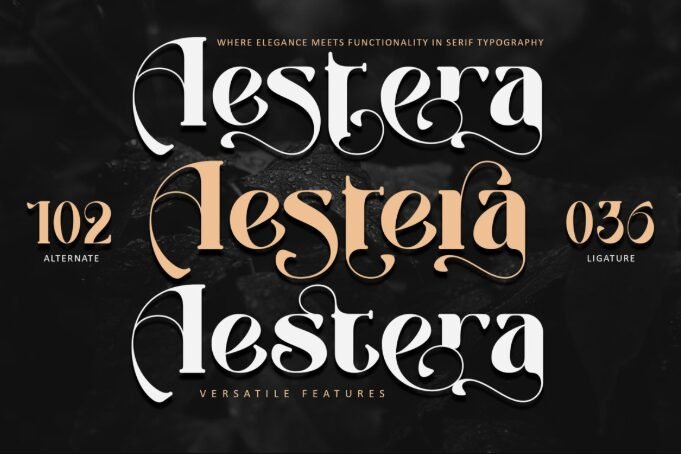
Aestera displays unique, experimental letterforms that easily leave a lasting impression for your clothing brand. It’s floral and sporadic, contrasting strokes make Aestera pop.
2. Rockybilly
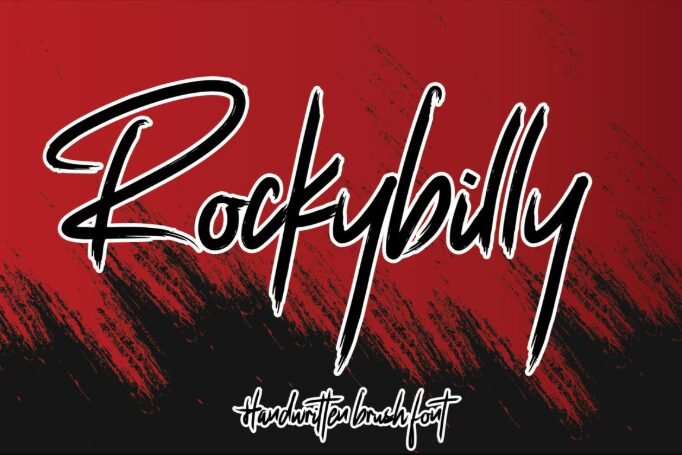
Edgy, cool, and carefree are exactly what Rockybilly represents. Rockabilly handwritten brush look, featuring deliberately longer vertical strokes that convey a free, expressive voice.
3. Reality Stone
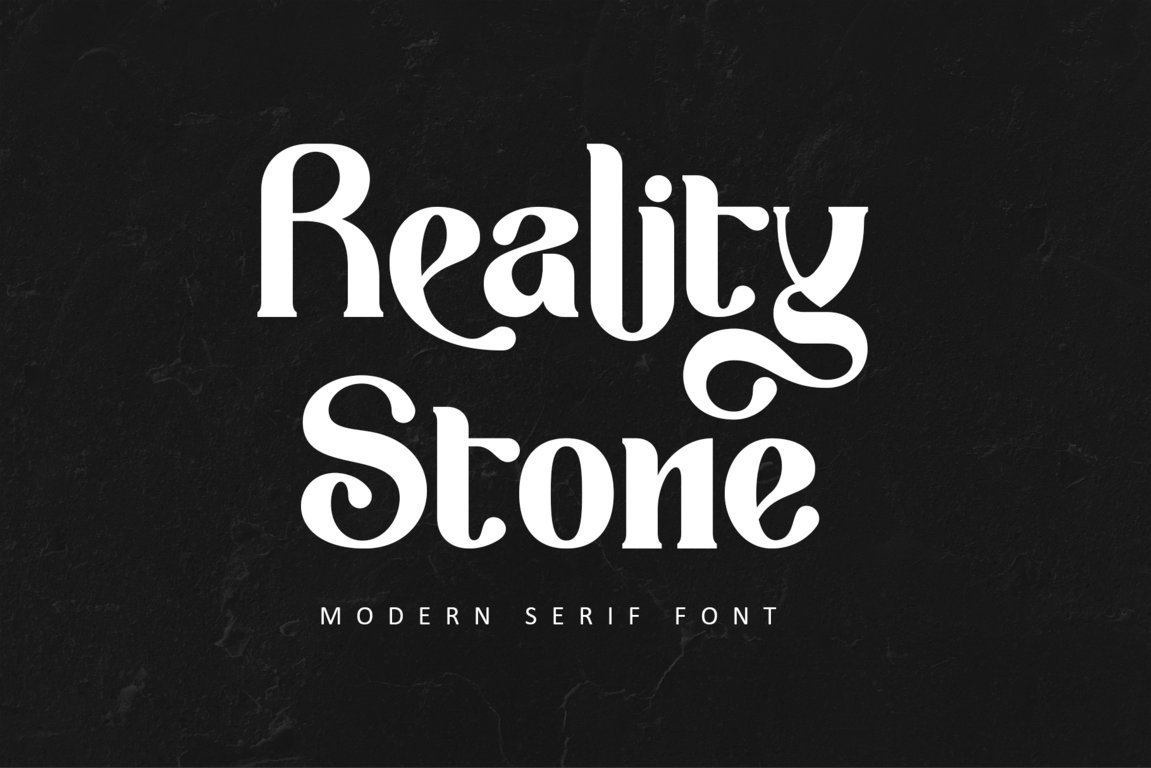
Reality Stone cleverly combines bold letterforms with stretchy and flowing ornaments. This combo makes Reality Stone exhibit an eye-catching dynamics between rigid and fluid.
4. Simbiot
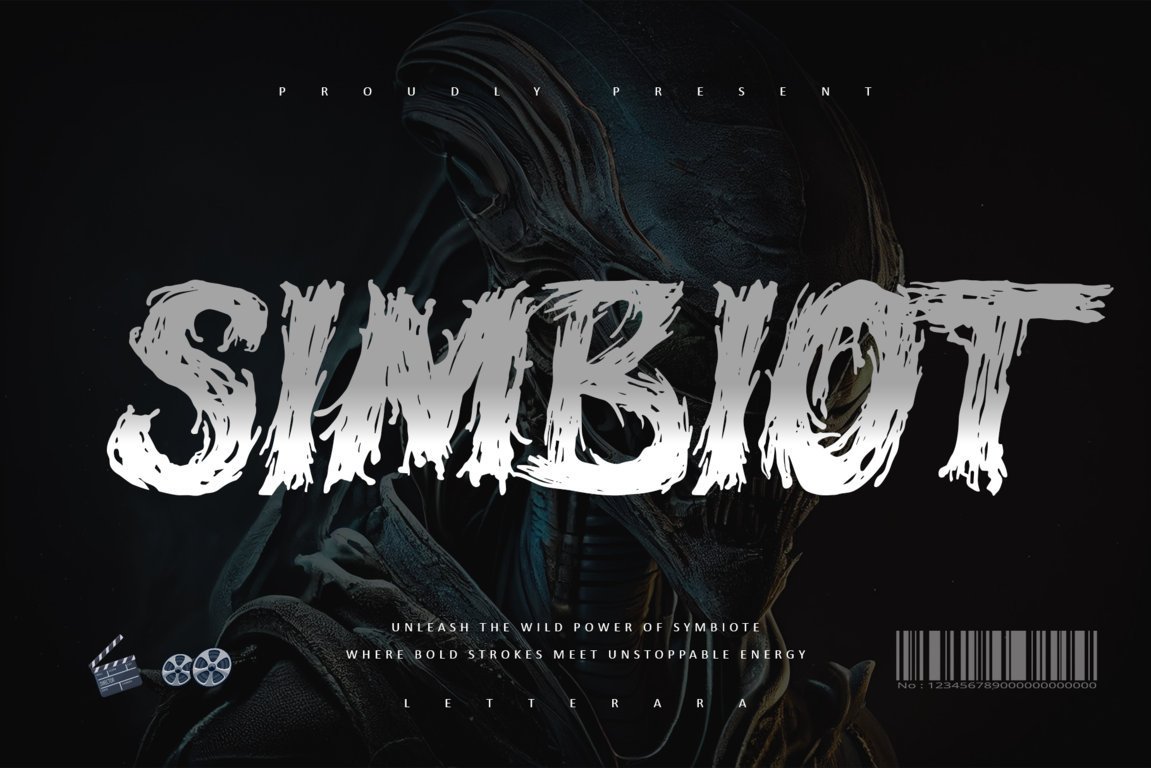
If you’re searching for an edgy font for clothing brand, use Simbiot. Simbiot uses thick, scribbled visuals to evoke the disturbed raw energy from your brand’s vision.
5. Ocean Trace
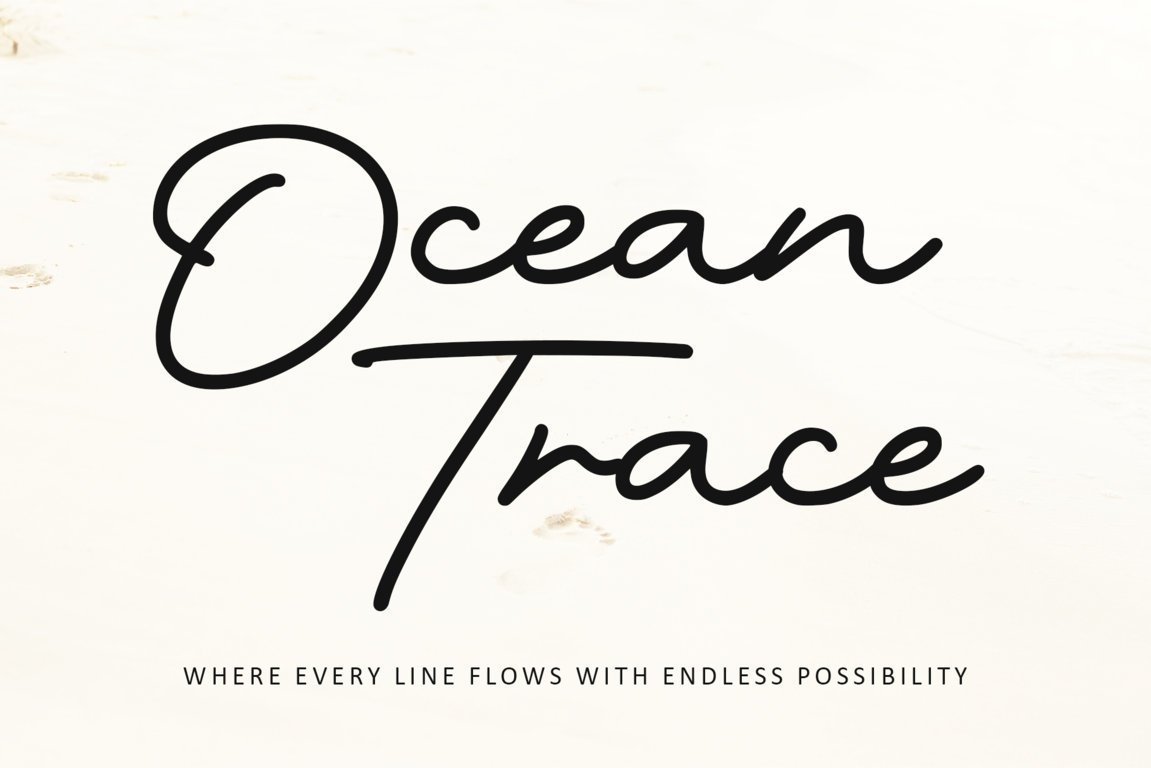
If simplicity is what you’re into, here’s Ocean Trace. Ocean Trace uses a monoline signature style to keep a sleek, clean profile.
6. The Army Of God
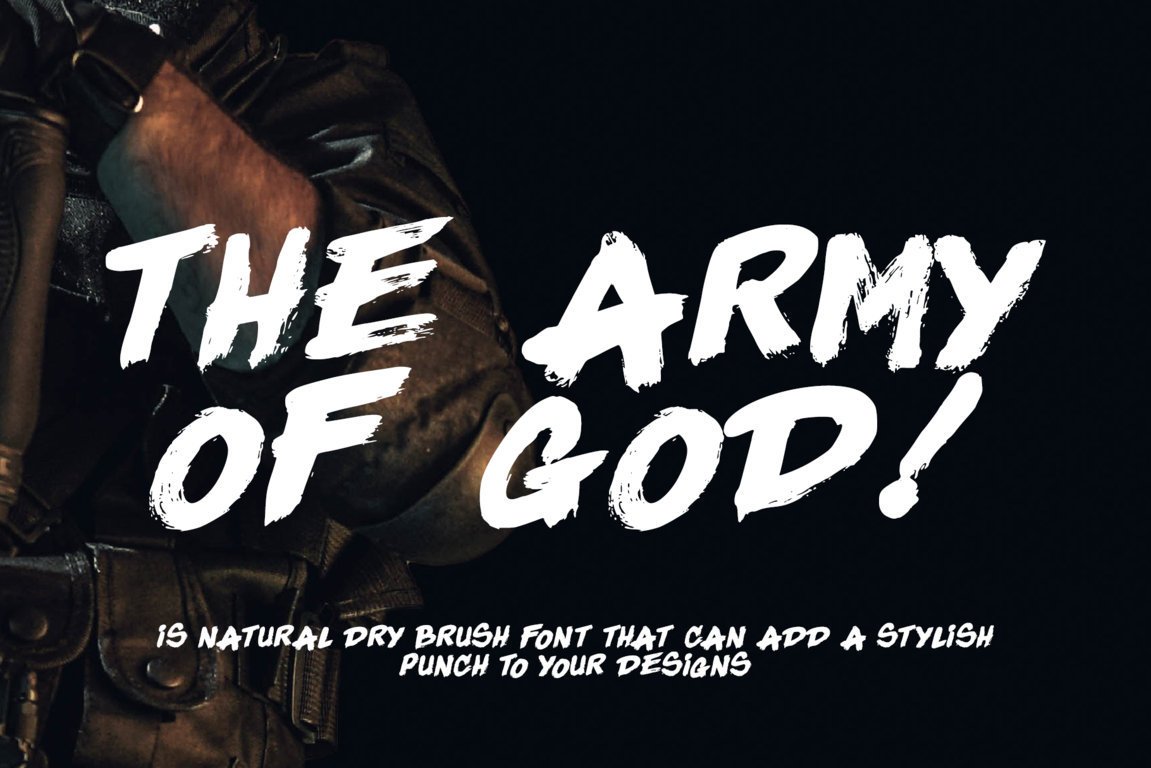
The Army of God uses thick brush strokes with an untamed, fearless aura. Fitting The Army of God on your clothing instantly boosts your text’s loudness.
7. Rolling Beat
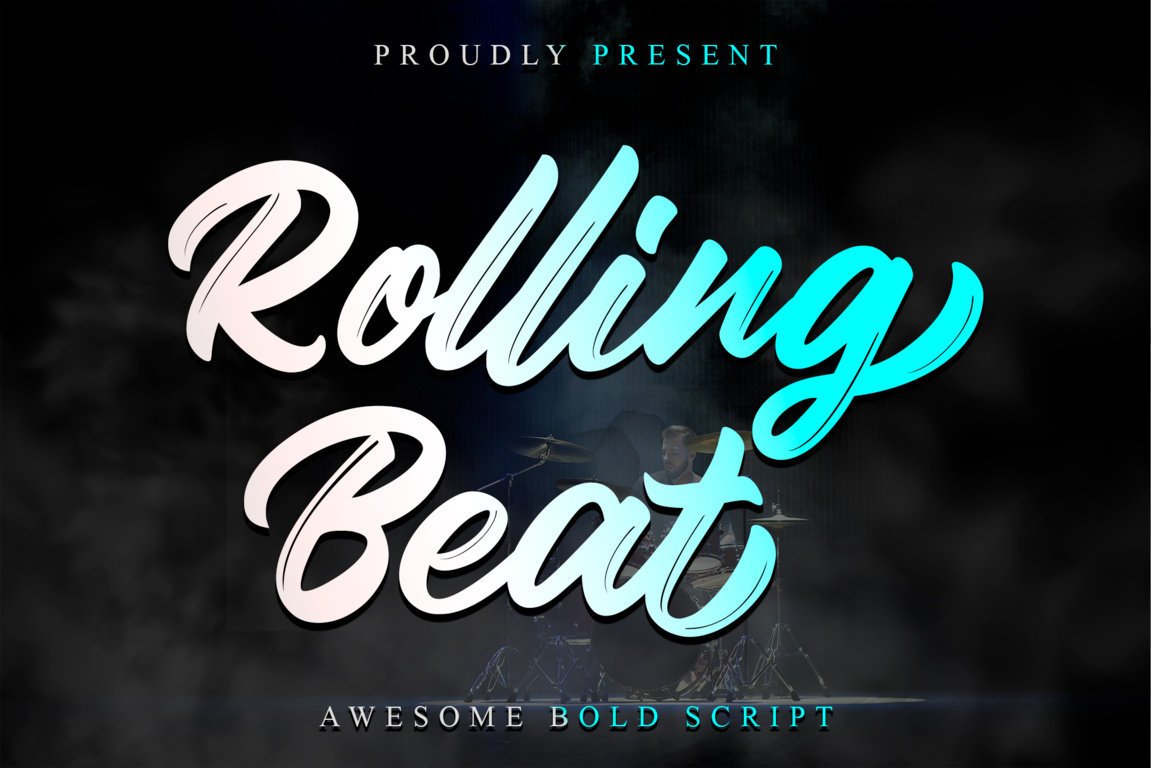
Among our cool fonts for clothing brands, Rolling Beat displays groovy, flowing letterforms, just like its name. Rolling Beat exemplifies how bold script can decorate your apparel.
8. Brokster
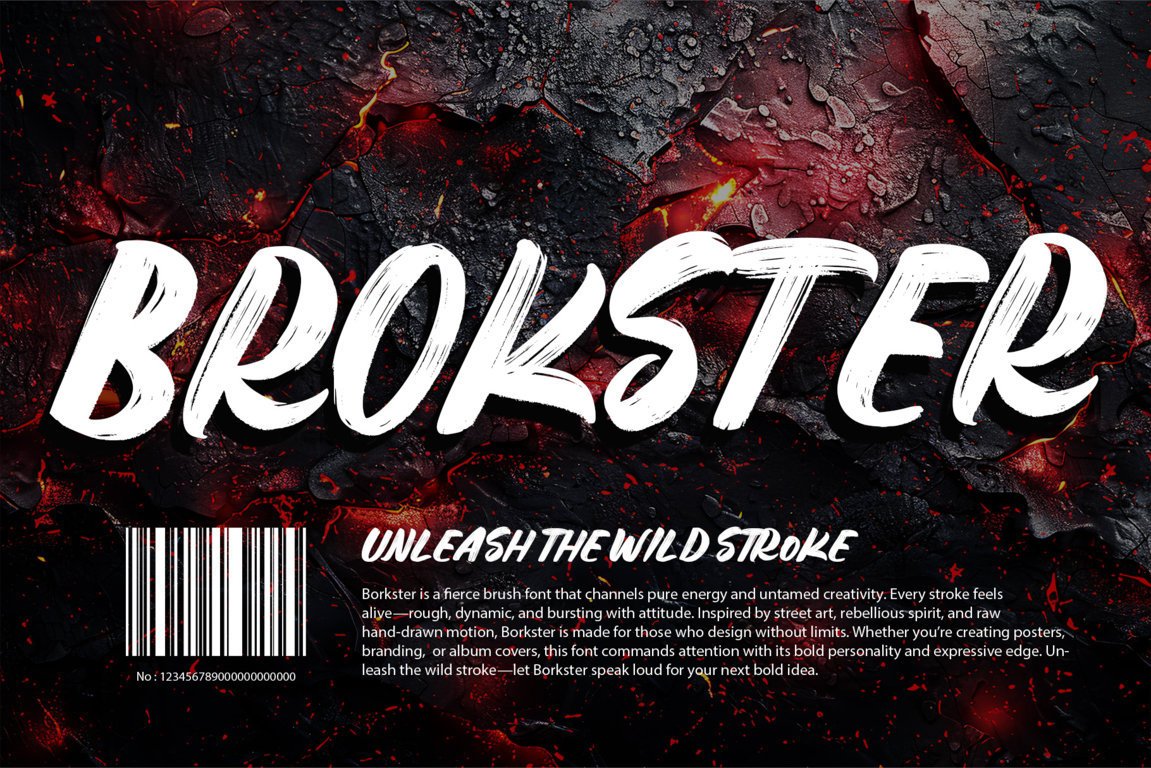
Brokster is specially made to capture attention. Equipped with all-caps letters, Brokster unleashes daring brush letters with grande visuals and a hint of rebellious vibe.
9. Allrion
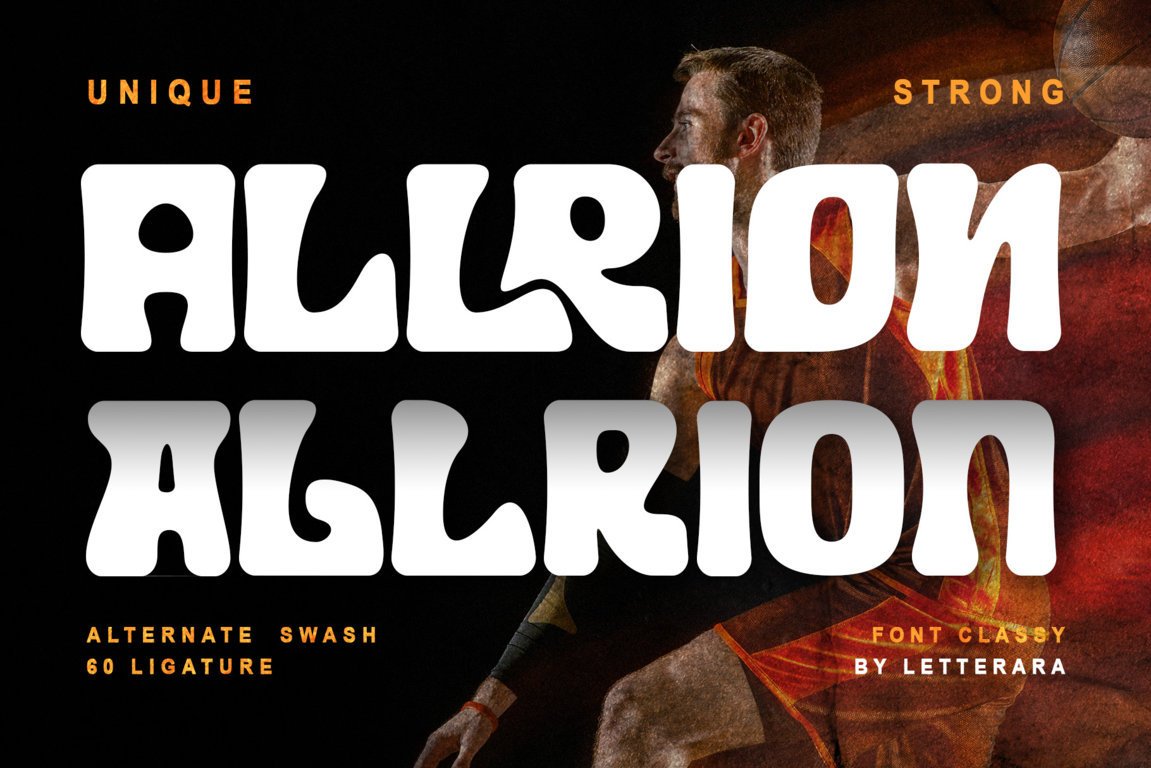
Combining rounded edges in squared letters makes Allrion exhibit a unique visual. Allrion fits the tone for your daring, yet playful designs.
10. Black Oldest
Black Oldest dashes an old-style serif font with mysterious vibes. Highlighting its curly accent and ornaments, Black Oldest embodies its purpose as a clothing brand font.
11. Ranvel
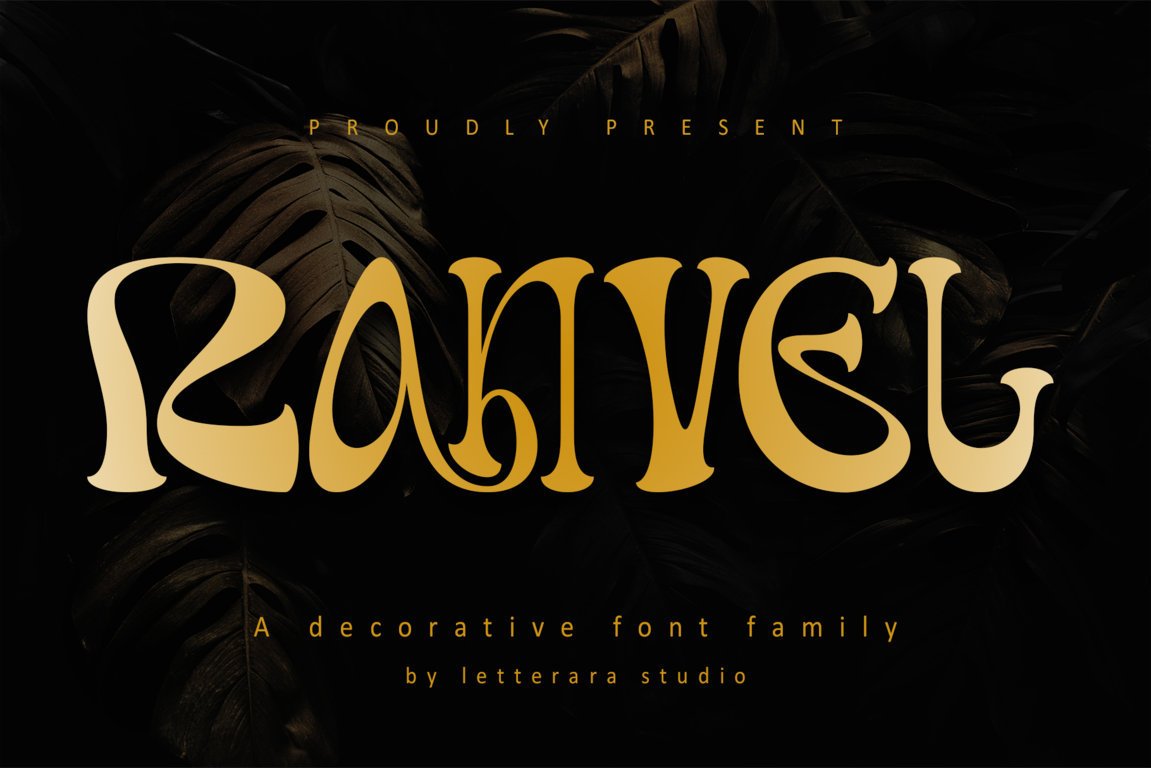
Ranvel is a family of experimental serif fonts. With eccentric and highly decorative all-caps letterforms, Ranvel gives you unlimited possibilities for a striking apparel brand.
12. Super Dash
Super Dash is a free-spirited brush font with thick strokes and light swipes. You can instantly see Super Dash’s masterful typography at a glance; just imagine how fabulous your brand looks in it.
13. Bolday
For sans serif fans, Bolday is a great choice to represent your brand. Bolday uses soft edges on its rigid strokes, even adding numerous flowy alternates and ligatures.
14. Vintage Brother
As one of the best fonts for clothing brands, Vintage Brother highlights its sophisticated, timeless beauty. Vintage Brother instantly suggests heritage and classic quality from your brand.
15. Emboh
Emboh is a playful typeface that elevates bold script style into a high-energy design. With friendly and fresh looks, Emboh is perfect for casual or youth fashion.
16. Black Starlord
Black Starlord is a futuristic typeface that can transform into a playful one, only by using its ligatures. Displaying tall, condensed letters, Black Starlord allows you to save space.
17. Hobenshaw
Hobenshaw is a sophisticated script font with masculine undertones that exudes power and precision. Its sleek, assertive, and tailored look perfectly matches bold men’s fashion branding.
18. Black Area
An all-caps font for clothing brand like Black Area offers maximum visibility and strength. Black Area is perfect for athletic or performance wear branding.
19. Honey Bear
Honey Bear is a comical font with ultra-hyped letterforms that scream everything it says. Its cartoony looks make Honey Bear a perfect fit for kids’ wear and toy design.
20. Batik Worldwide
Batik Worldwide is a blocky font, displaying the beautiful batik motifs inside of a sans serif typeface. You can add your one color to its batik motifs, further personalizing your brand.
Making a Lasting Impression Through Font for Clothing Brand Identity